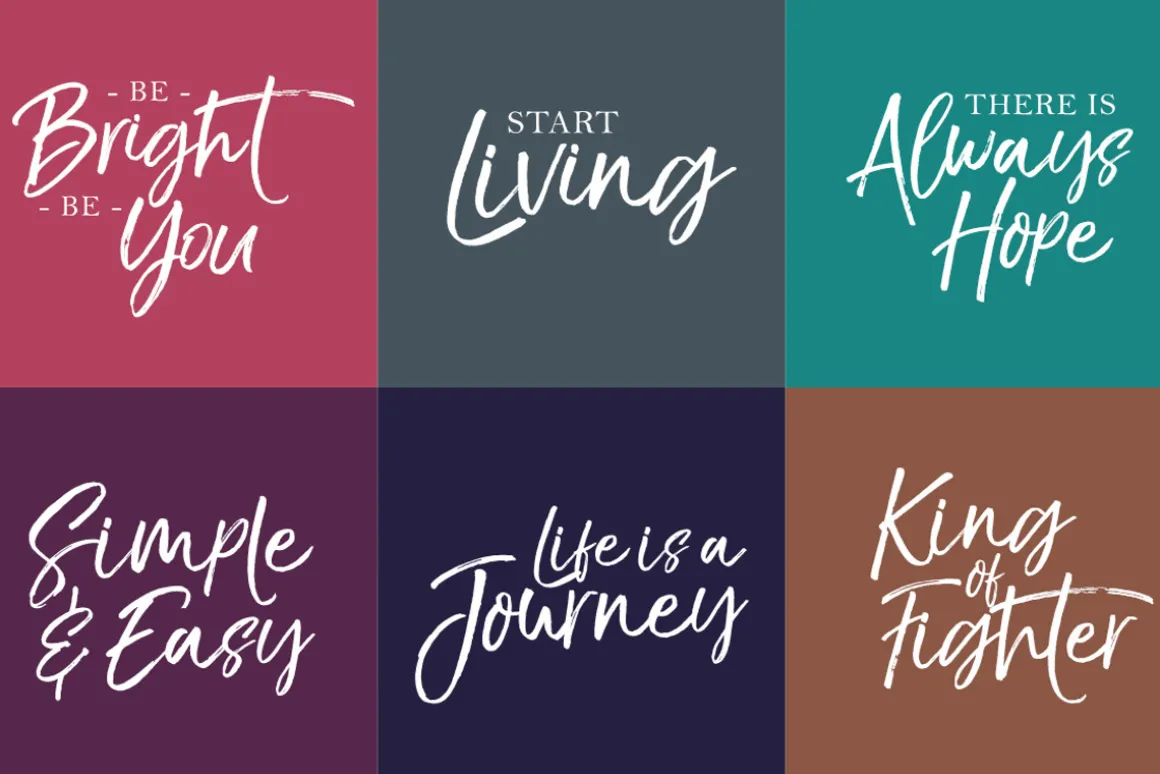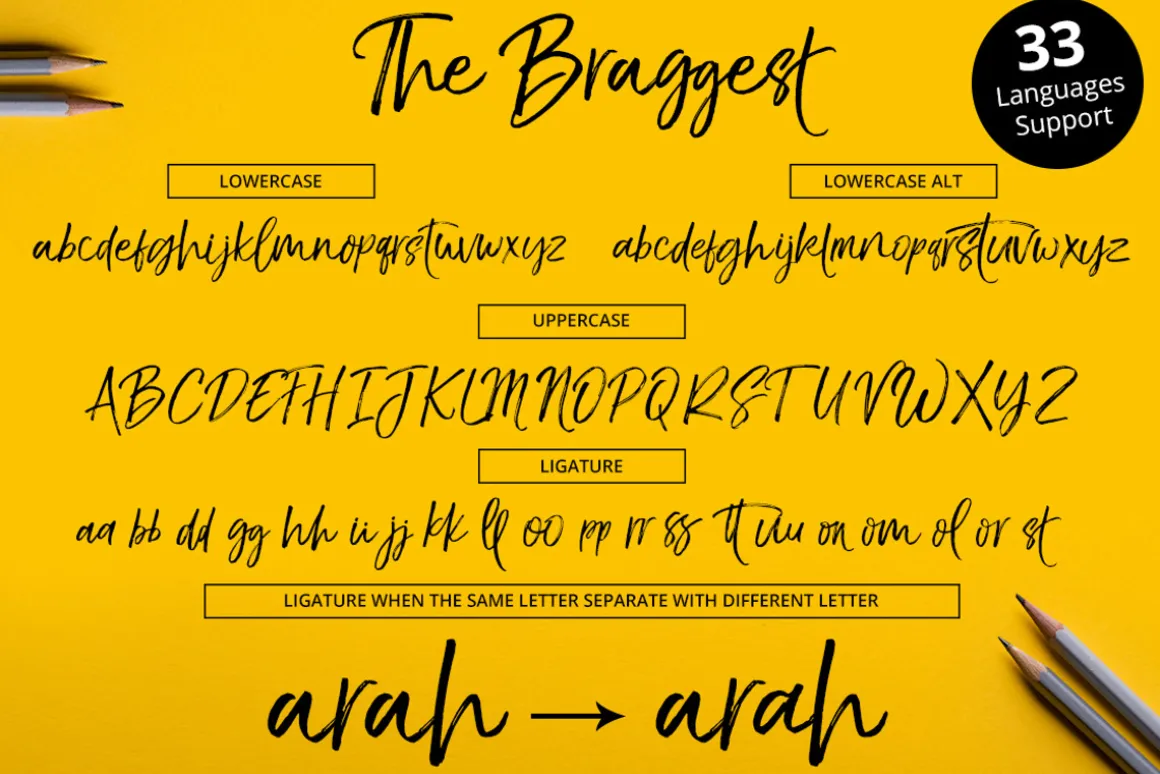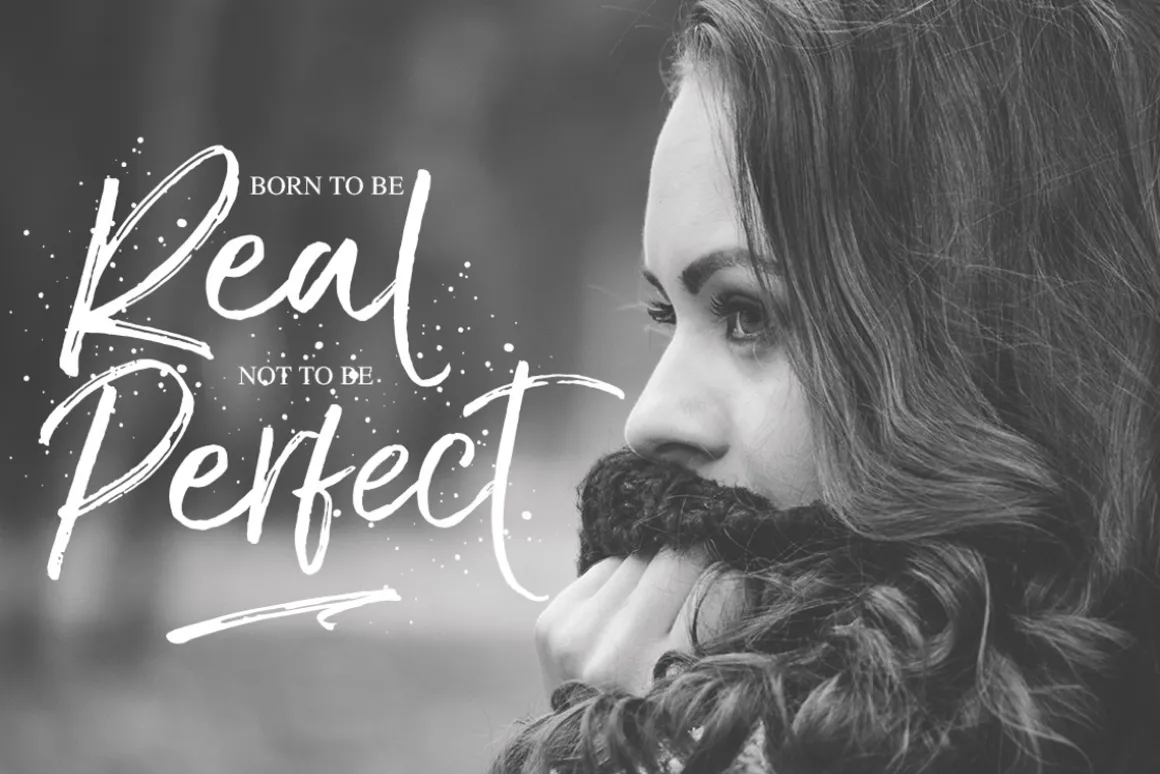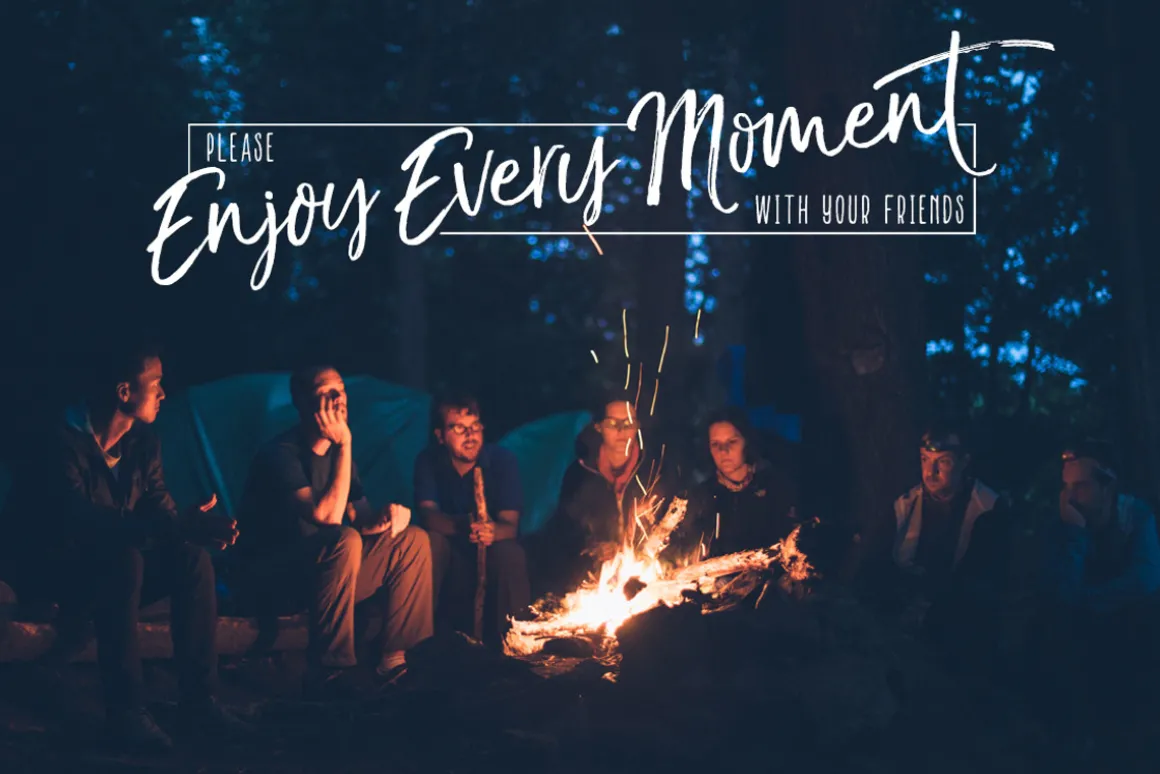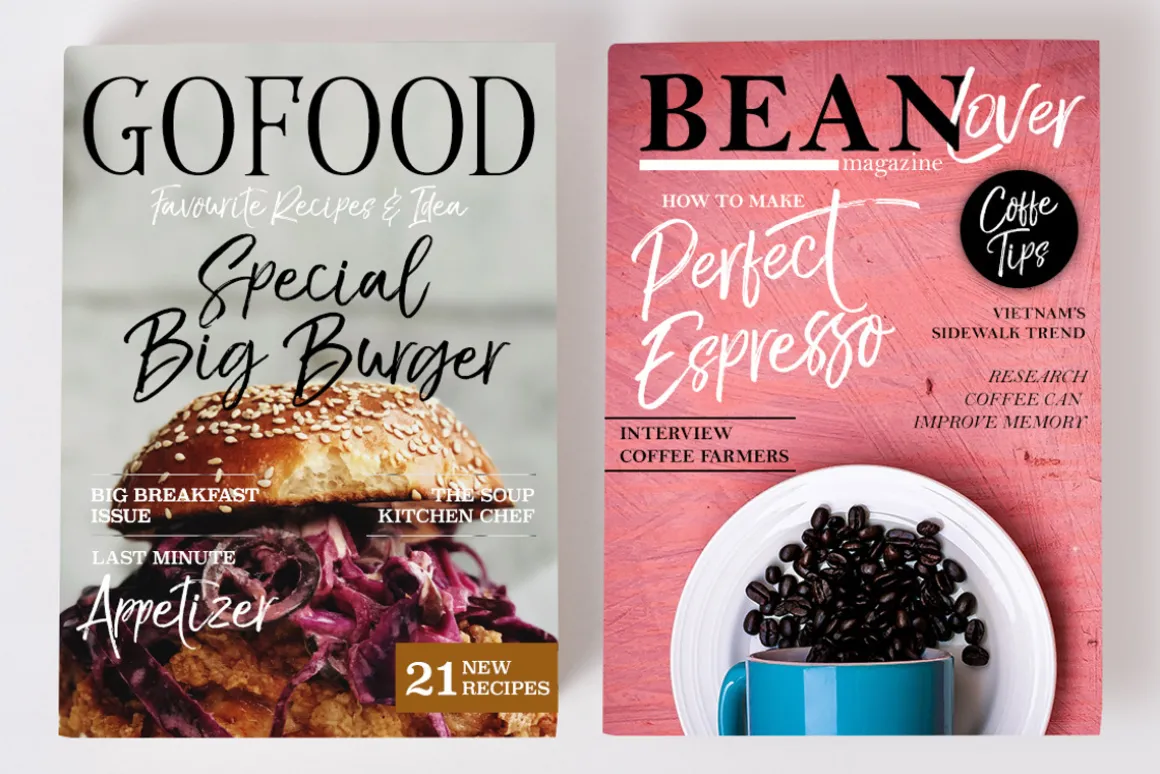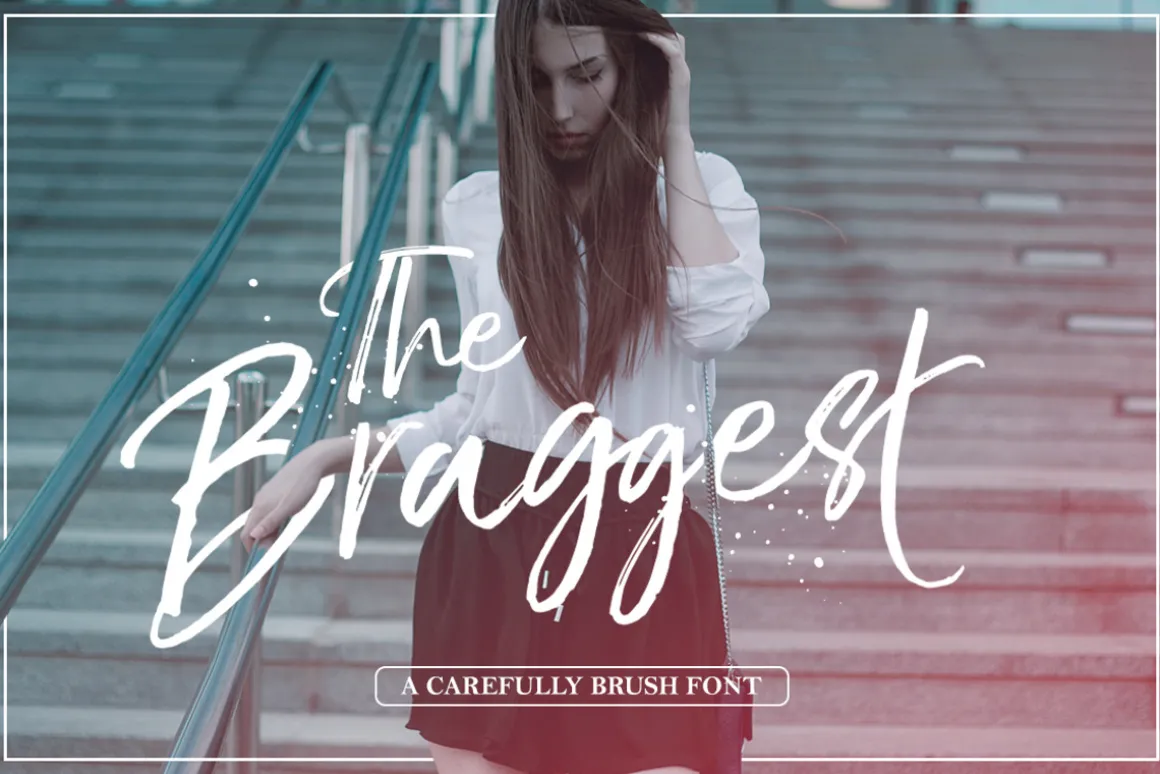
Introduction : The Braggest a new brush font carefully on making sketch and scanning until we get thebest result, and so was born a new crazy font and make it a very personal handwriting for every project.The Braggest includes two lowercase characters, and very likely ligature thats allow you to make a personal handwriting especially for branding project
- Included alternate characters and awesome ligature
- Multilingual Support, this font supported 33 different languages : Albanian, Croatian, Czech, Hungarian, Polish, Romanian, Serbian (Latin), Slovak, Slovenian, Afrikans, Basque, Catalan, Danish, Dutch, English, Faroese, Finnish, French, Galician, German, Icelandic, Indonesian, Italian, Malay, Norwegian, Portuguese, Spanish, Swahili, Swedish, Turkish, Estonian, Latvian, lithuanian.